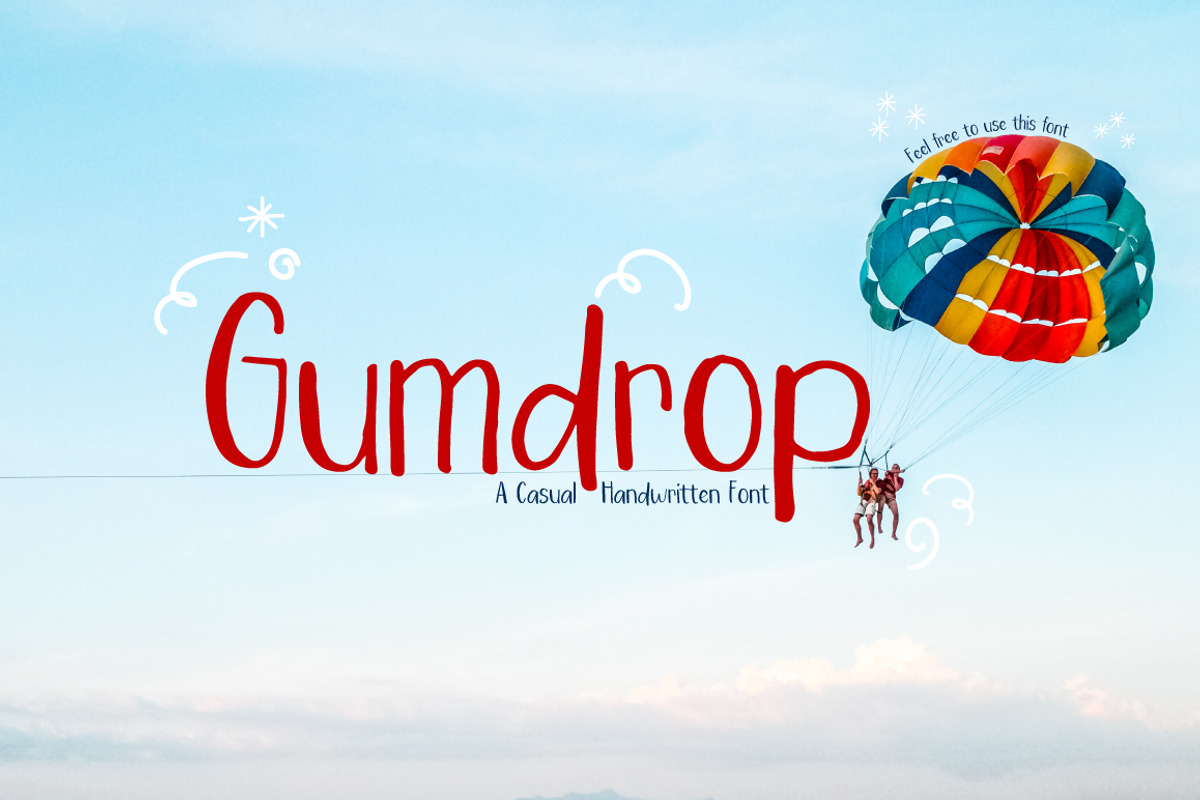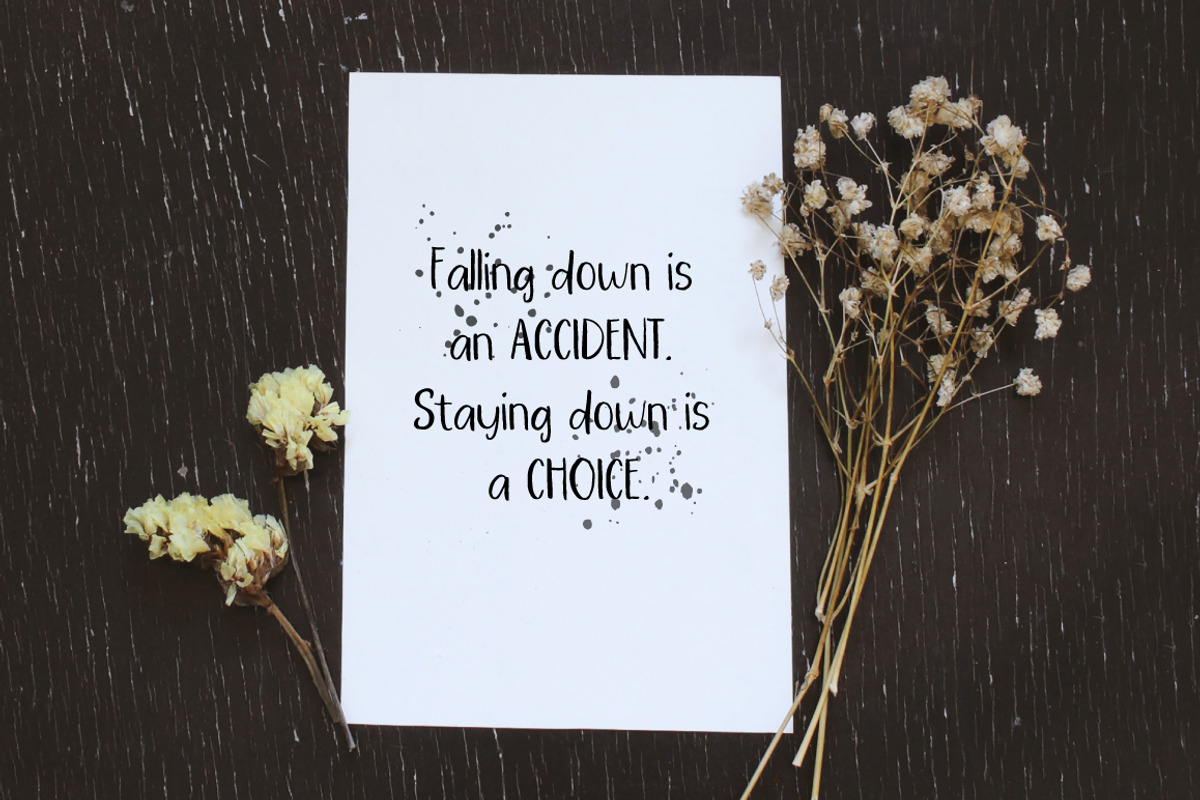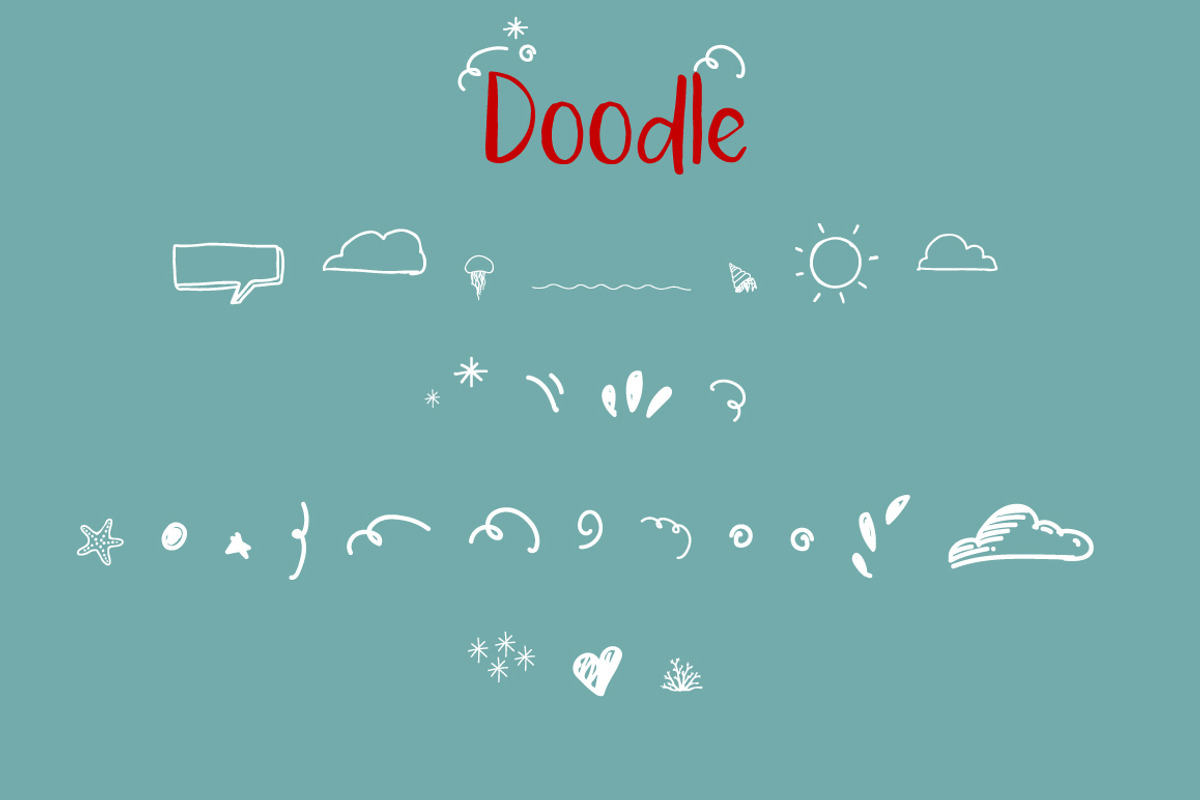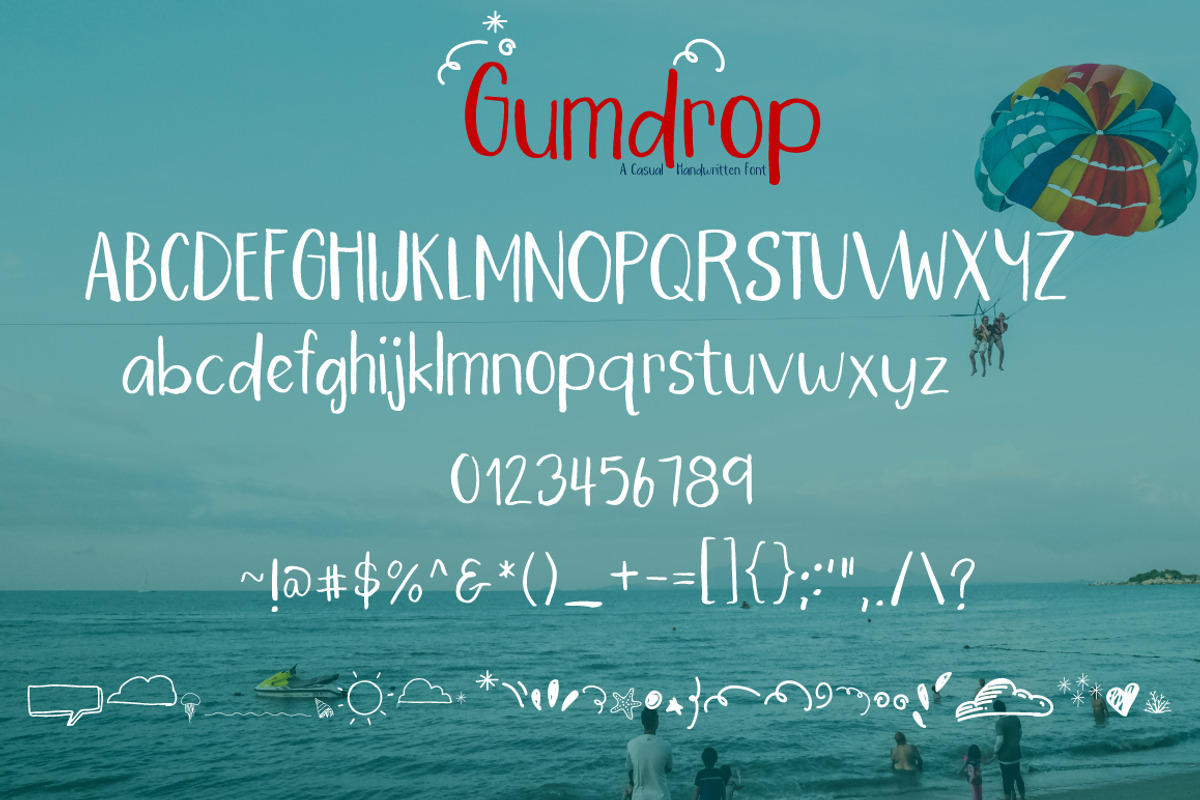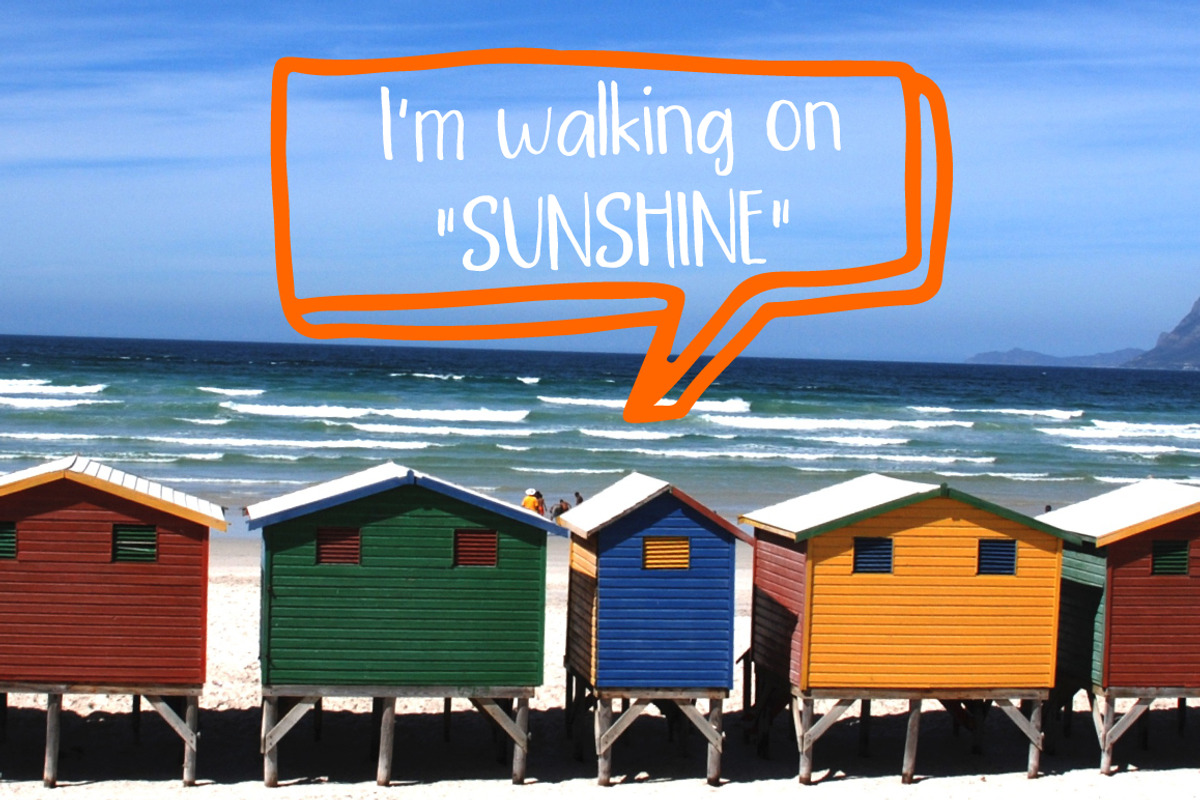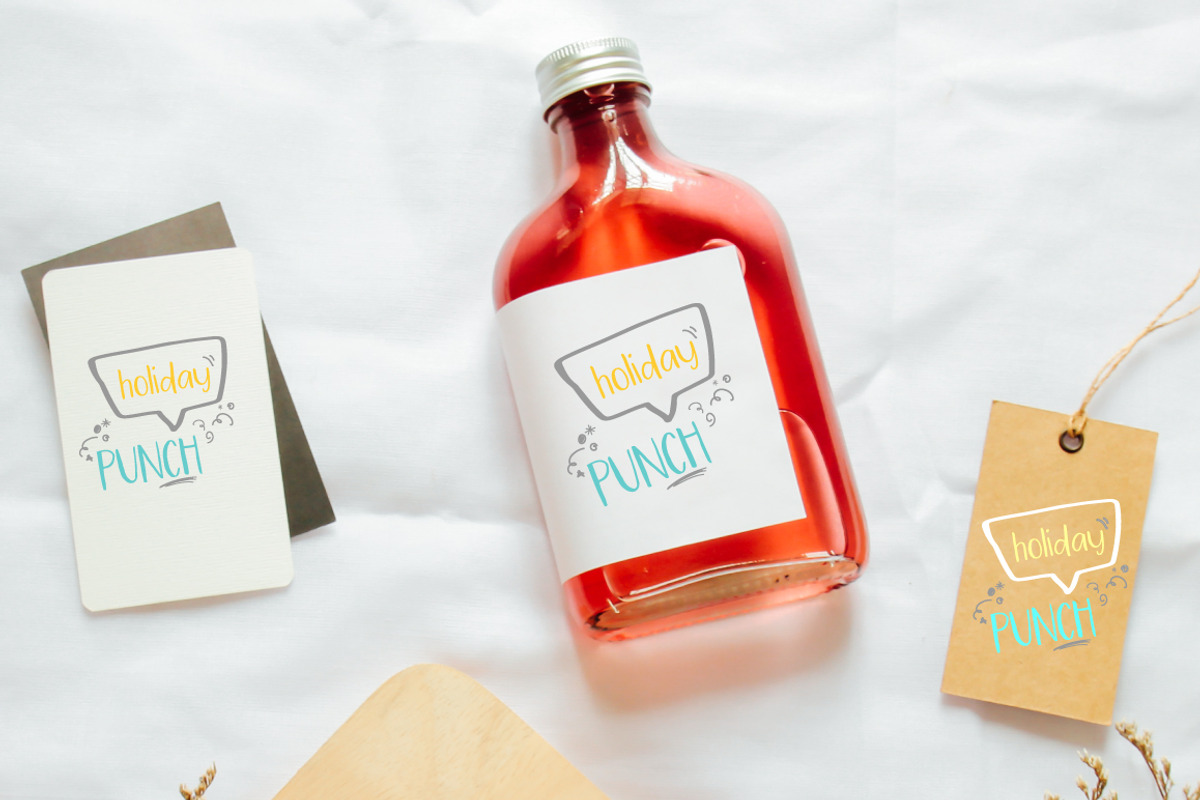
Gumdrop | Handwritten font
I made it with a bitty brush and pretty watercolors. It's got little of texture. Wobbly rough watercolor edges!
It's an abstract and artistic font, perfect when used alongside mixed media compositions and collages. It's also beautiful in menus, branding. Also with their help, you can create a logo or beautiful frame for your home. Or just use for your small business, book covers, stationery and more.